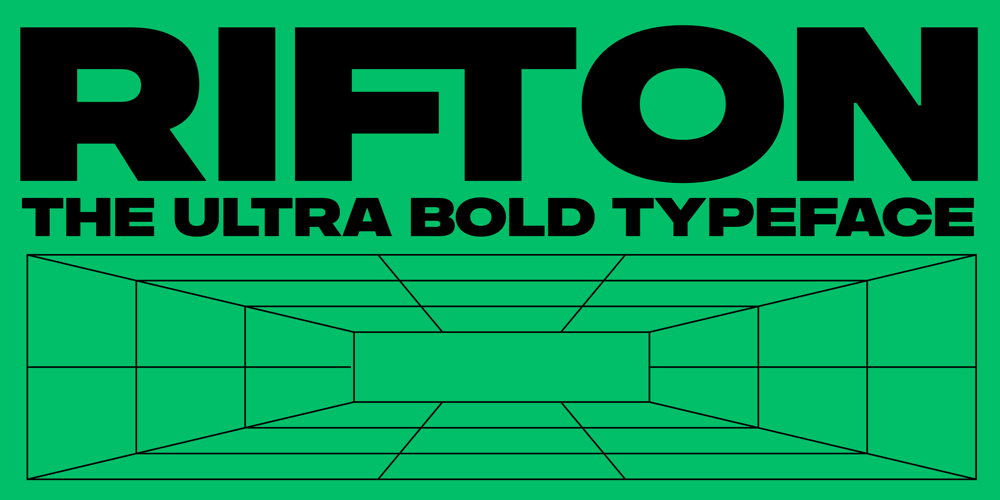
Rifton Font Family was designed by Deni Anggara and published by Halbfett. Rifton contains 2 styles and family package options. Rifton is a heavy display typeface designed for use in large sizes. It is available as a regular and italic font or as one Variable Font with an italic axis. Installing the Variable Font offers users additional benefits because, in addition to the pre-defined “upright” and “italic” instances, the interpolations between them can be used. That allows you to have slanted text – but just a little less slanted than in the italic. Rifton is an all-caps design, but the letters mapped to the lowercase keyboard do not always have the same forms as the uppercase. That is most visible when it comes to the “s”, which takes a Star-Wars-style form (think of the Star Wars logo). The Rifton fonts also include OpenType features like ligatures – including some exciting discretionary ligatures – and super-wide alternate glyphs for several letters, including “B”, “E”, “F”, “H”, “L”, “N”, “P”, “R”, “T” and “Z”. Rifton is ideal for making a bold statement in headlines, poster designs, or logos.-